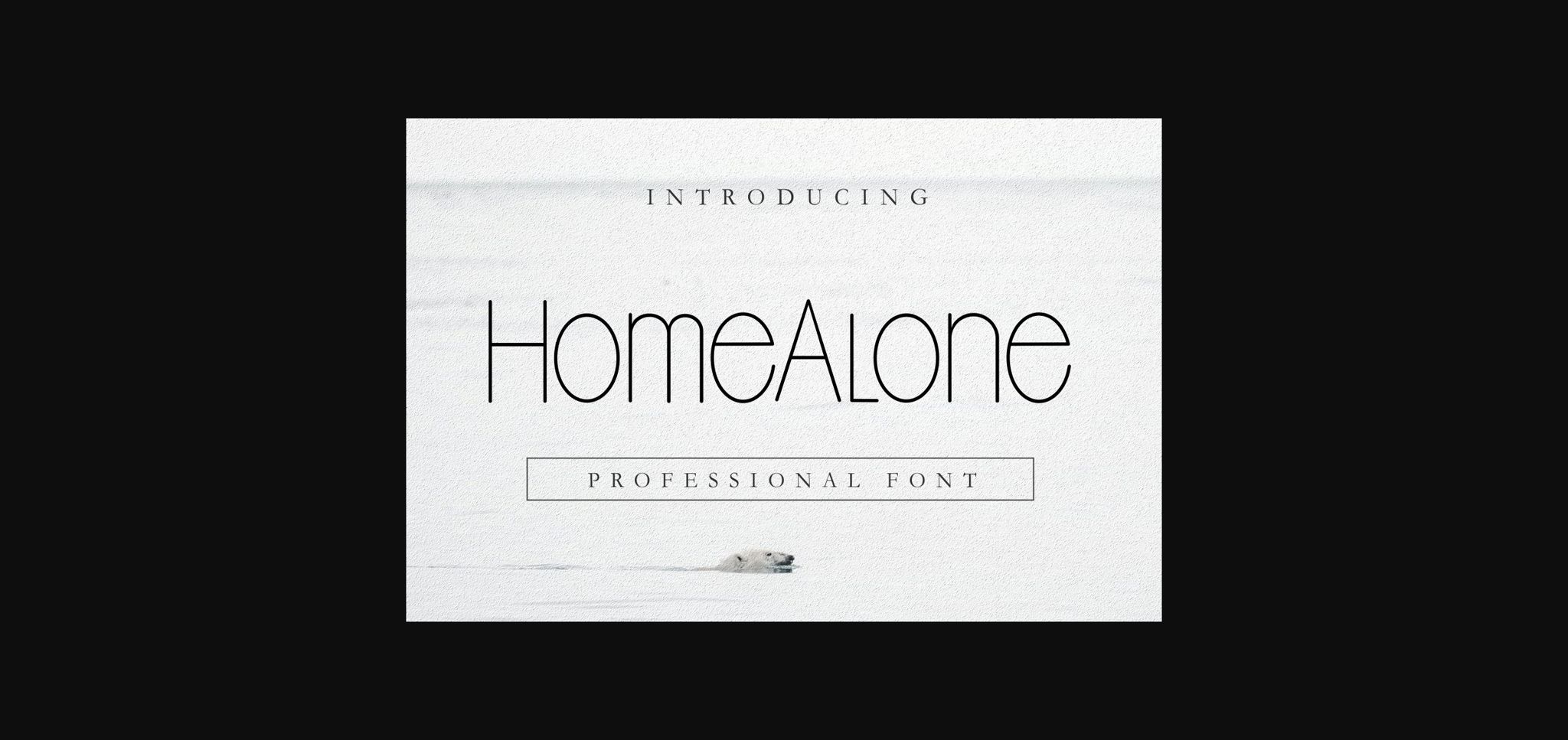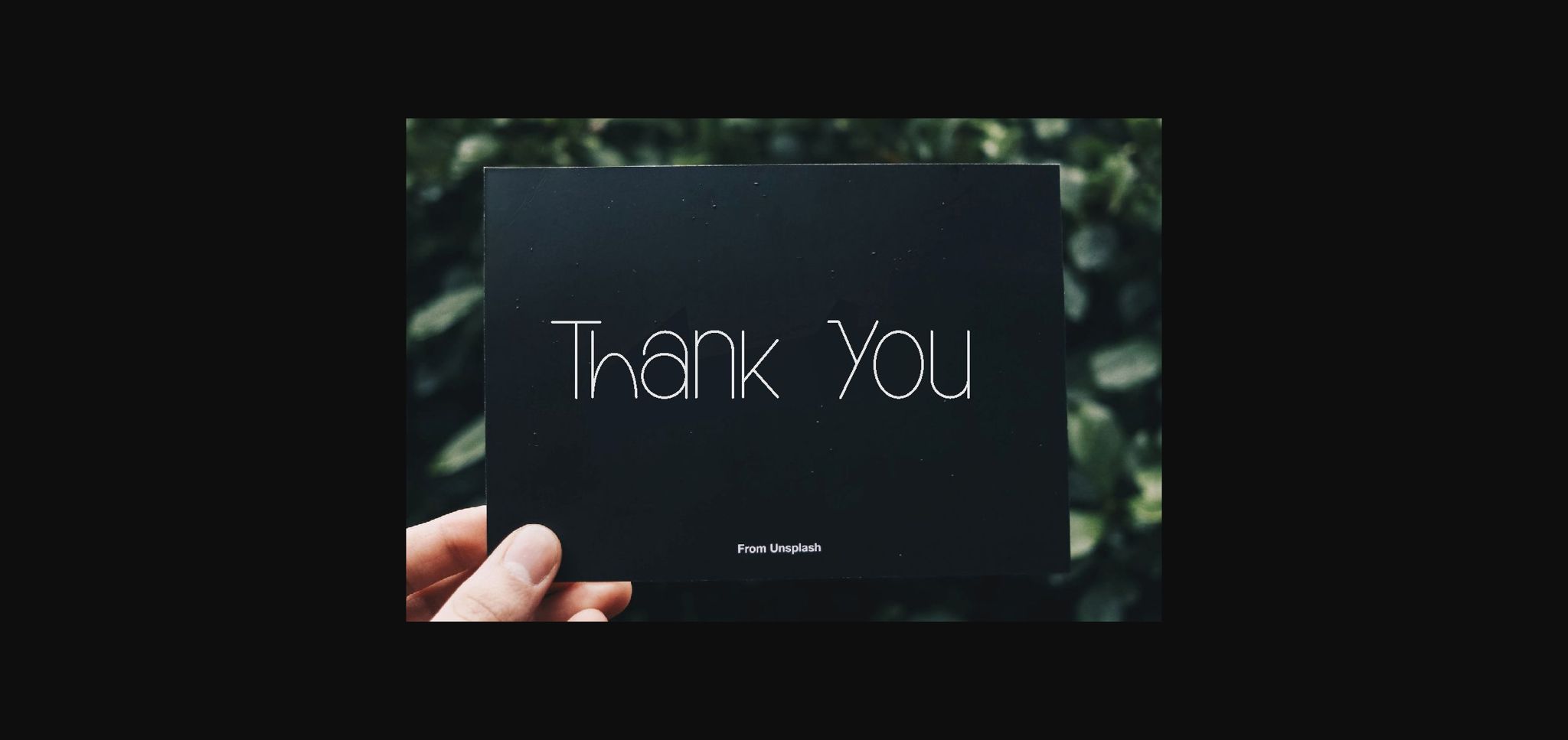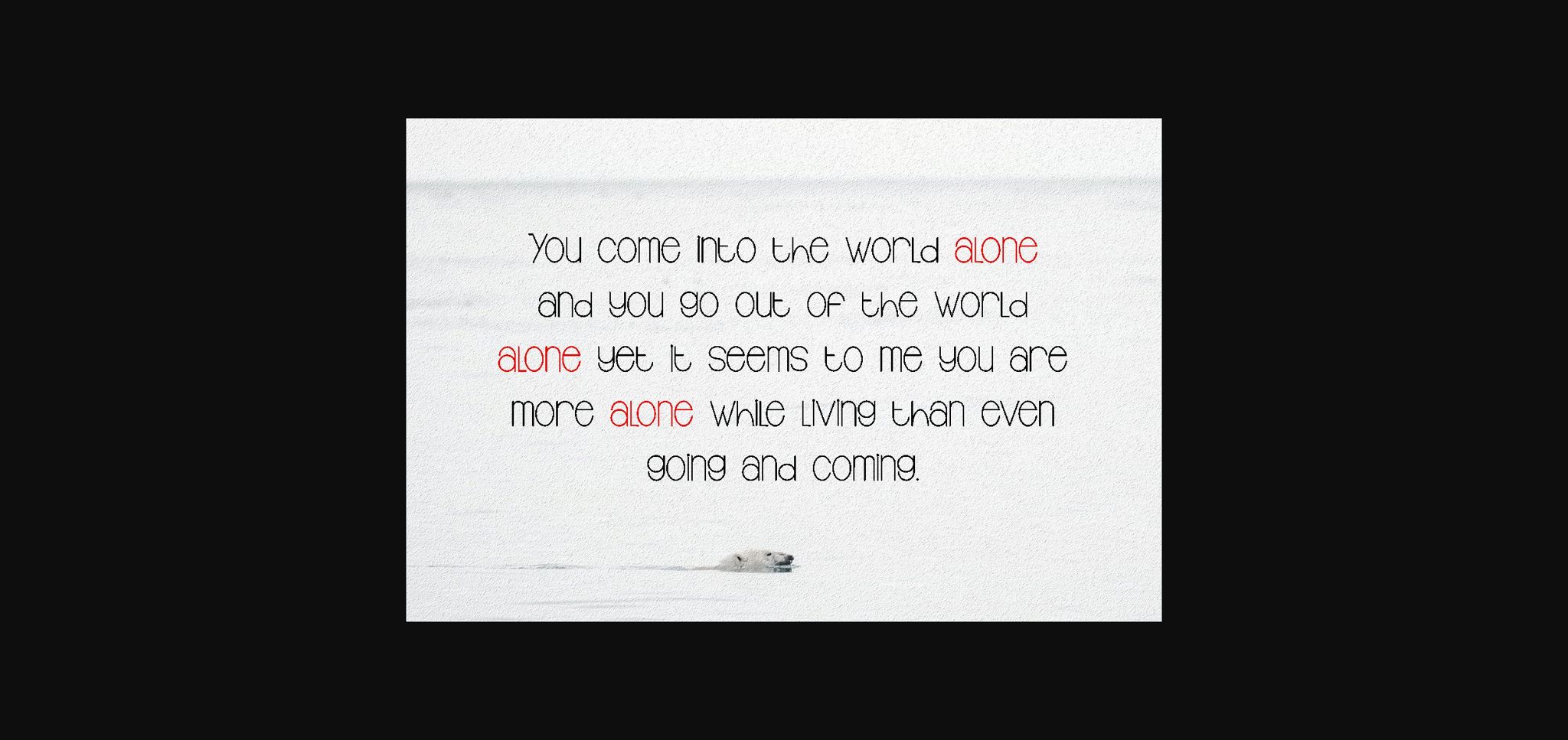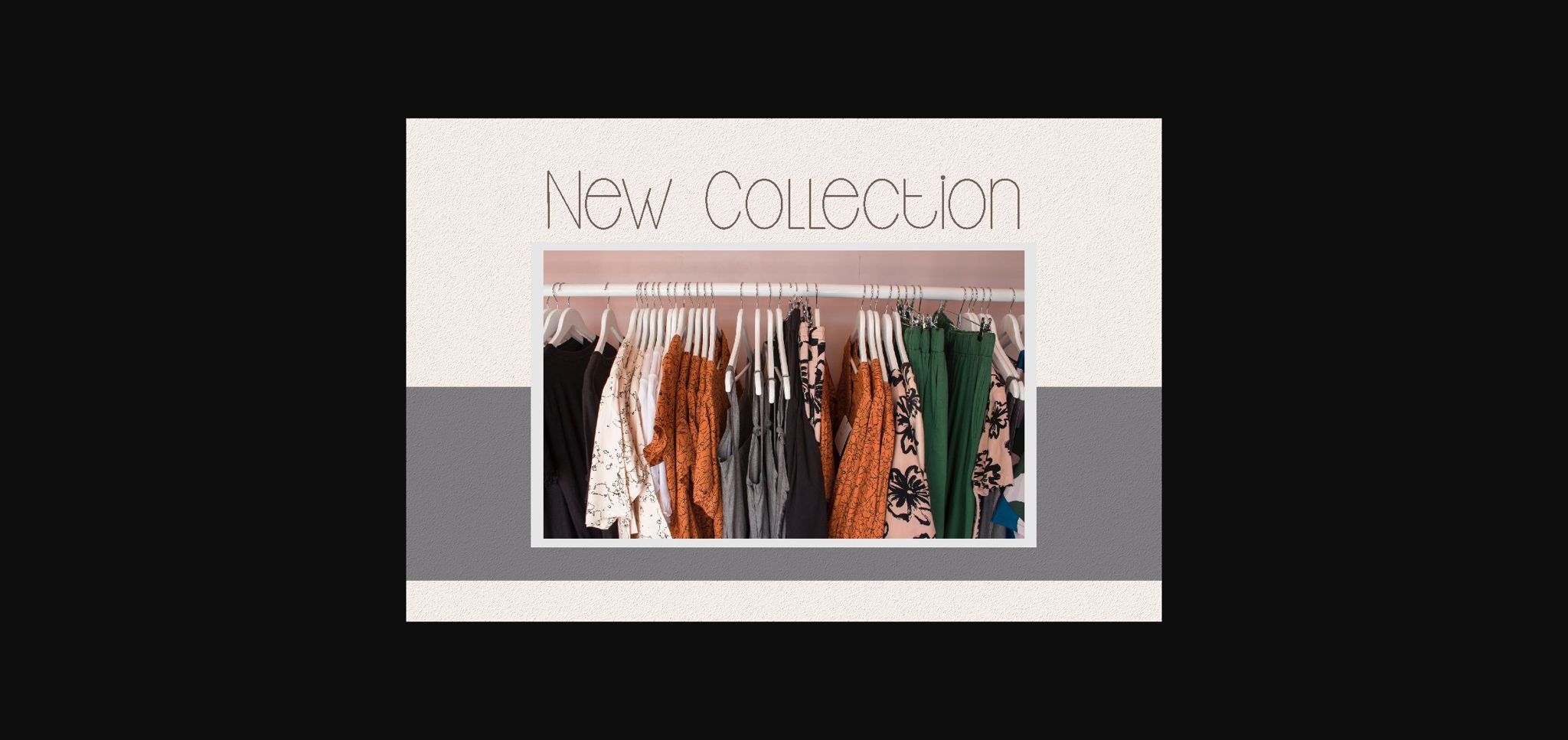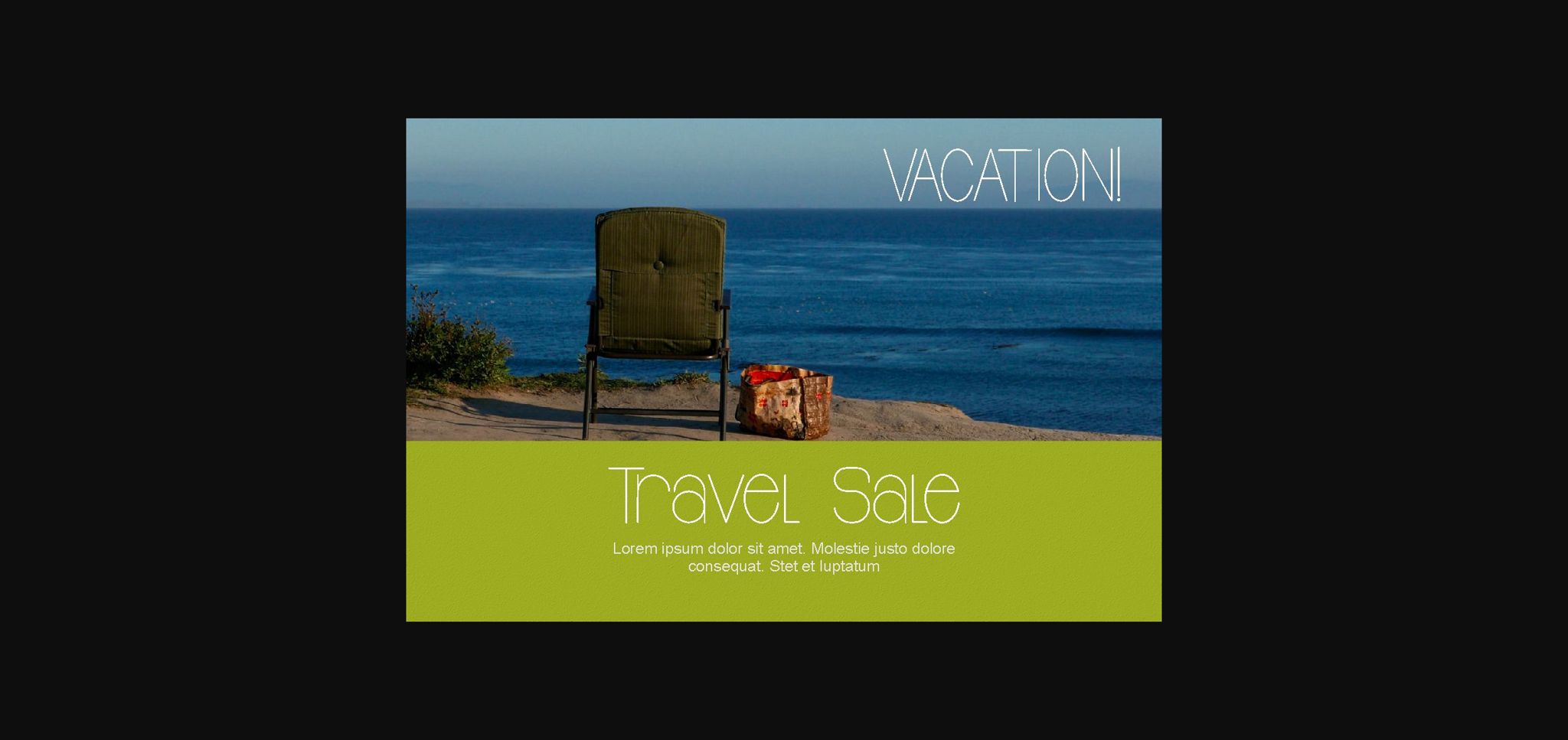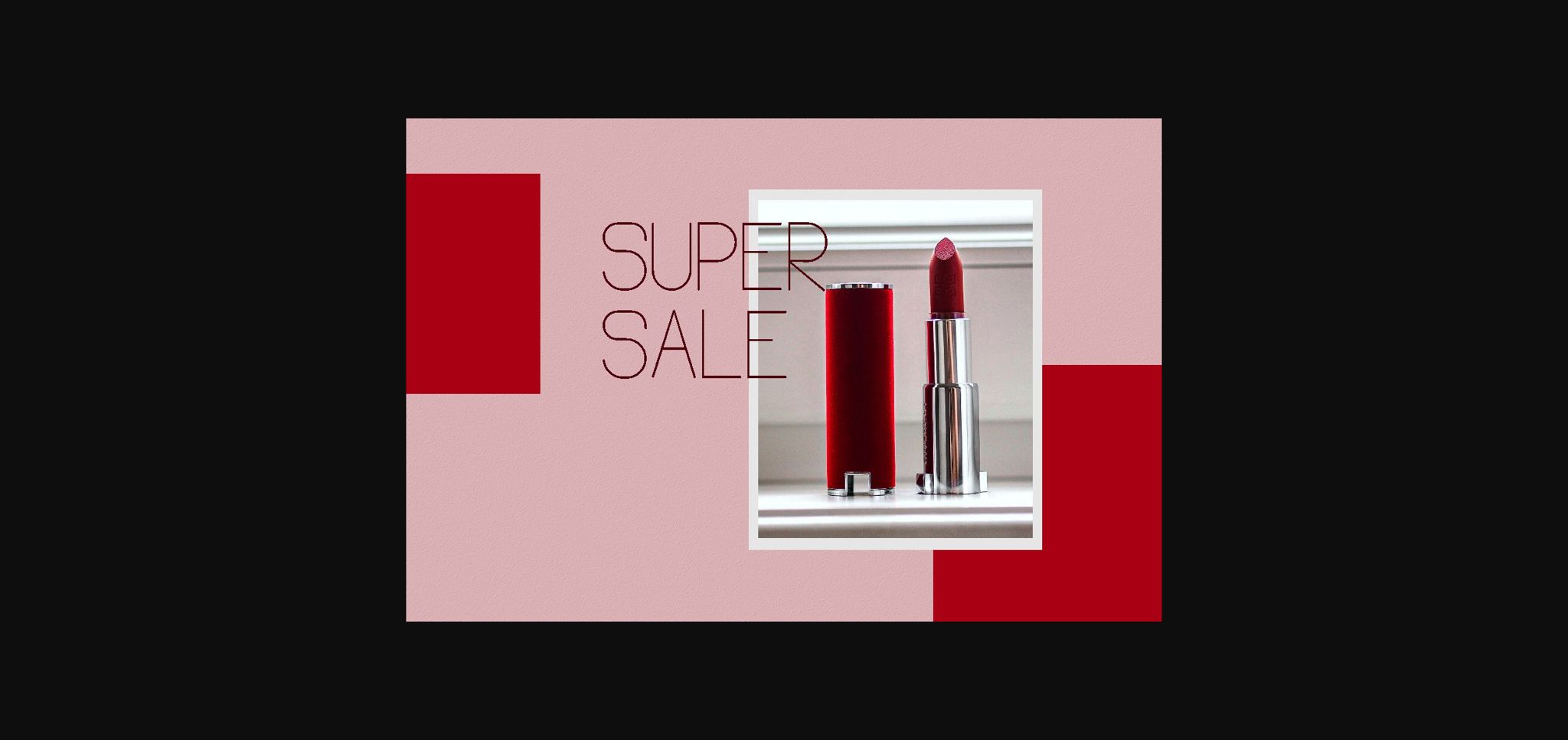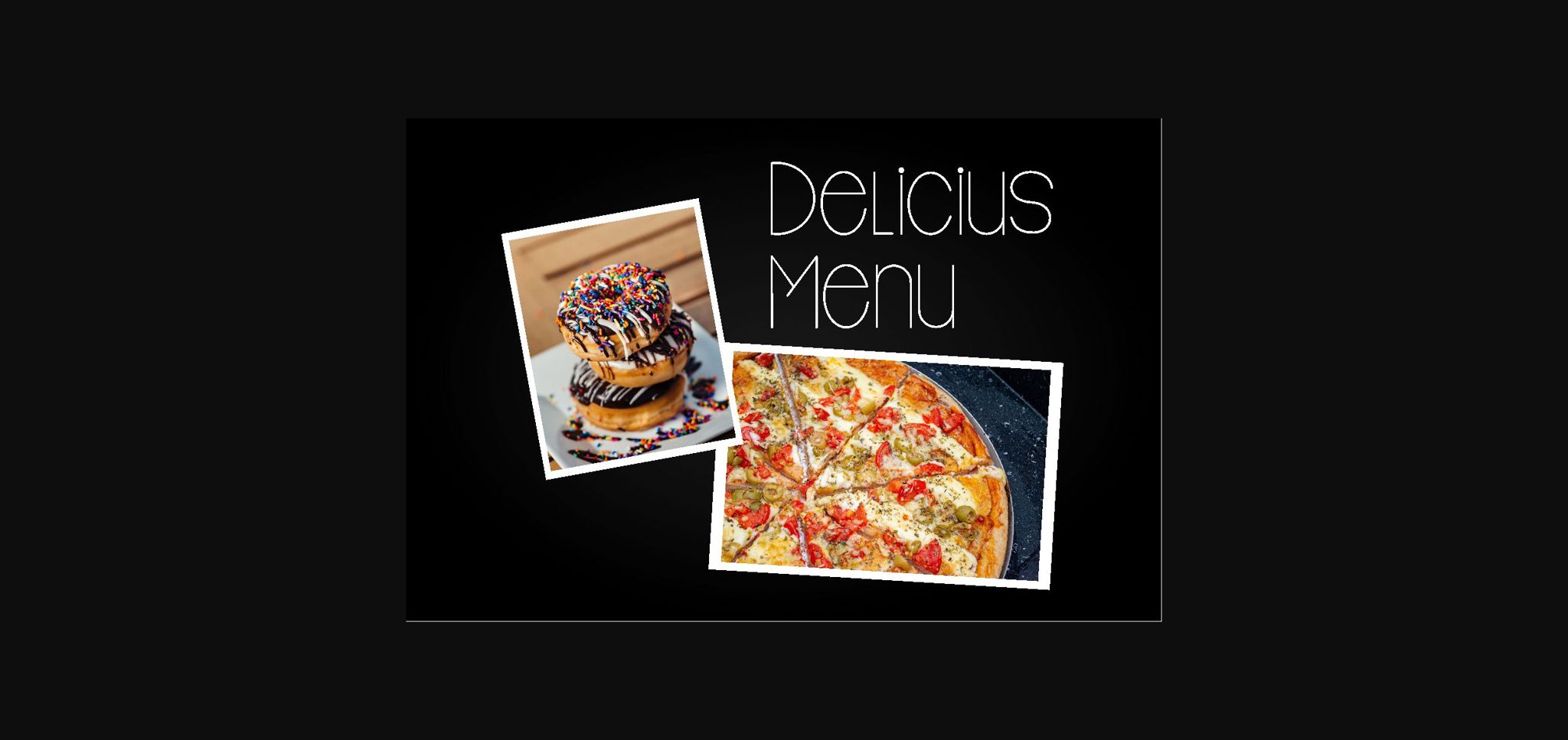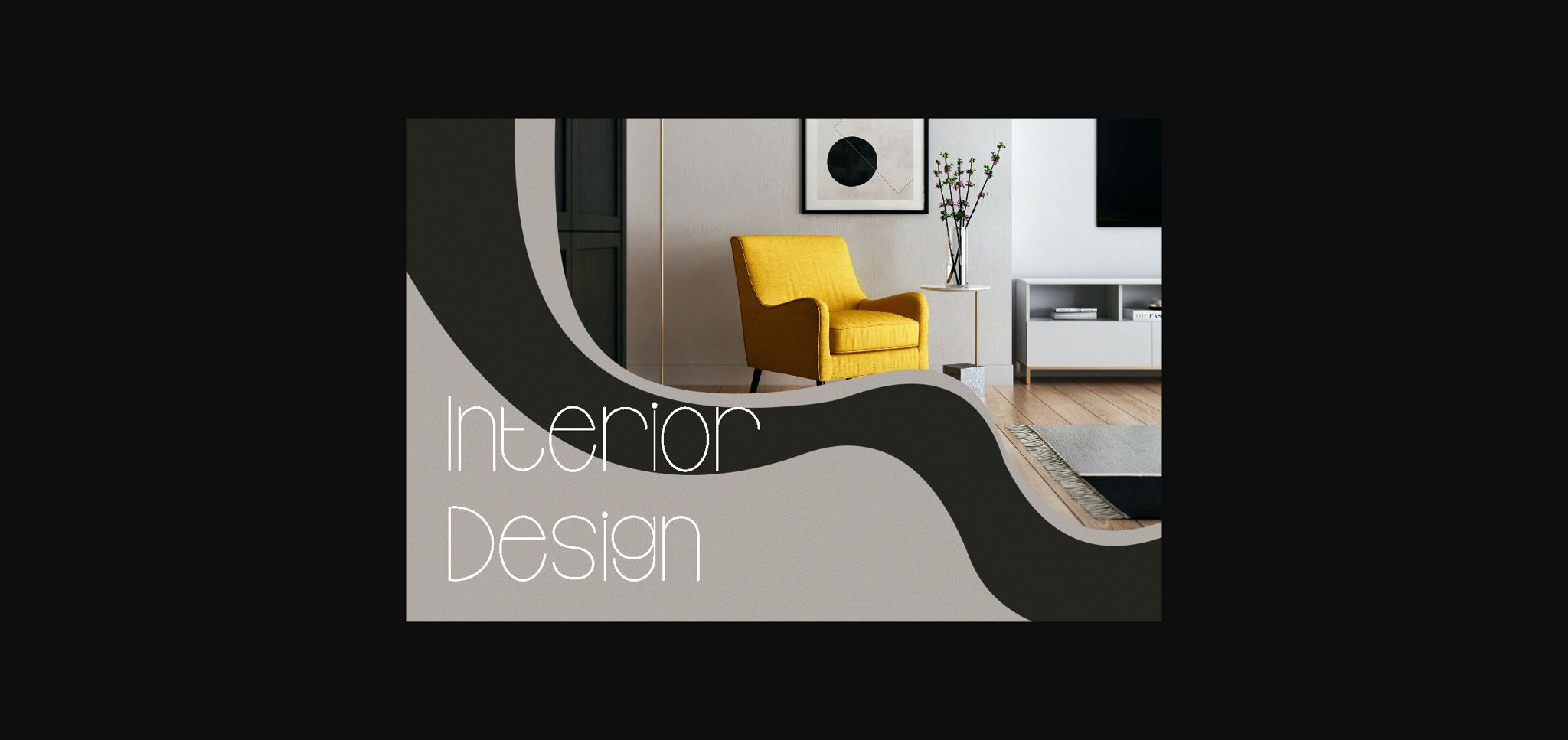
HomeSans Serif FontsHome Alone Font Sans Serif Fonts Home Alone Font FacebookXPinterestWhatsApp 1 of 10 ... Home Alone Font Poster 2... Home Alone Font Poster 3... Home Alone Font Poster 4... Home Alone Font Poster 5... Home Alone Font Poster 6... Home Alone Font Poster 7... Home Alone Font Poster 8... Home Alone Font Poster 9... Home Alone Font Poster 10... About Home Alone Font Home Alone is a simple, clean and neat sans serif font. No matter the topic, this font will be an incredible asset to your fonts’ library, as it has the potential to elevate any creation. DOWNLOAD NOW People also explored Carbon Black Font Maseiye Font ZP Blackcurrant Font Adhipati Font Brattica Script Font Ashek Font Dibacheh Font Isemator Font Bridesmaid Font 299 0 TagsHome Alone Font Previous articlePatrice FontNext articleProeble Font LEAVE A REPLY Cancel reply Comment: Please enter your comment! Name:* Please enter your name here Email:* You have entered an incorrect email address! Please enter your email address here Website: Save my name, email, and website in this browser for the next time I comment. Personal Use Free Jurnal Personal Use Free Read more about this font Castina Personal Use Free Read more about this font Stentiga Personal Use Free Read more about this font Pan Pizza Personal Use Free Read more about this font BLOG Fonts That Capture the Spirit of New York City New York City is more than just a place—it’s an experience, a rhythm, a visual language... Using Fonts in Digital Marketing: Tips to Strengthen Your Brand Identity How to Install and Use Fonts on Windows, macOS, and Web Projects Exploring Font Trends